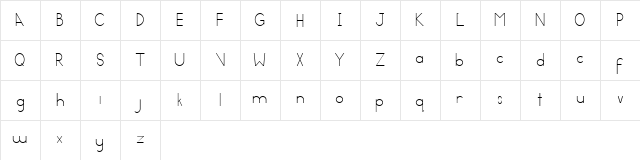
Contemporary Regular
Design Context for Contemporary Typeface
Contemporary offers clean, dependable letterforms without strong stylistic allegiance, making it a practical choice for designers who need flexibility.